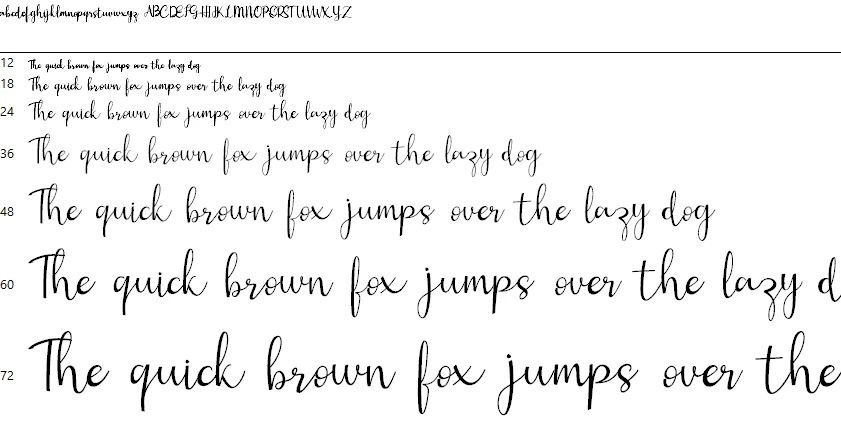
Gisella Handwritten Font is a new natural script with a handwritten and script style that makes it attractive, natural, and elegant. The lovely font comes in two formats: TTF Font and OTFFont. The font also has PUA Encoded Characters, which is a significant plus. The typeface can also be used without any additional design program. The fonts support Afrikaans, Albanian, Catalan, Danish, Dutch, English, Icelandic, Italian, Spanish, Portuguese, German, Swedish, Norwegian, Polish, Indonesian, Zulu, and more. The font is designed and shared by inspira type.
This typeface looks best in Adobe Indesign CS, Adobe Illustrator CS, or Adobe Photoshop CC, all of which have OpenType support. Assume you don’t have any OpenType-compatible software. If this is the case, adding the Gisella Handwritten Font file that comes with the installation will allow you to use the ligatures, alternatives, and swashes. This lovely script and handwritten font is ideal for any form of creative or handcrafted project. You can use it as the text for any form of handwritten creation, and I’m confident it won’t let you down.
Gisella Handwritten Font is ideal for invitations, logos and branding, photos, advertisements, watermarks, social media posts, product packaging, product designs, label, wedding designs, stationery, special events, and anything else that requires a touch of handwriting.